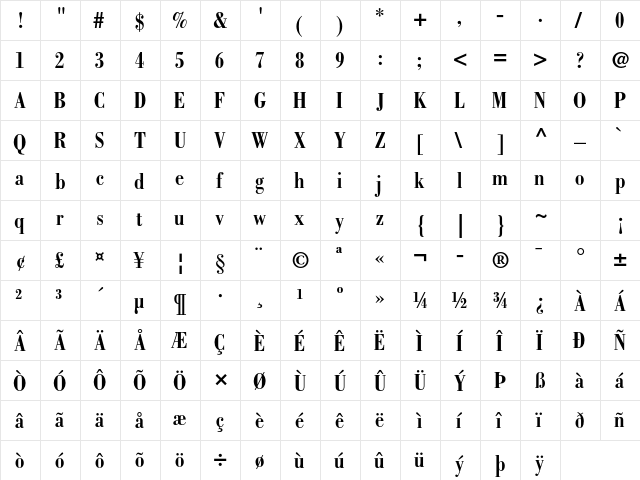
Bodoni Std Bold Condensed
| Designer | Morris Fuller Benton |
Design Context for Bodoni Std Typeface
Bodoni Std takes a measured approach to typography — its balanced proportions and neutral character make it a reliable workhorse for both digital and print work. Its bold stroke weight gives it real presence on the page. Its narrow stance lets it pack a punch even in space-constrained designs.